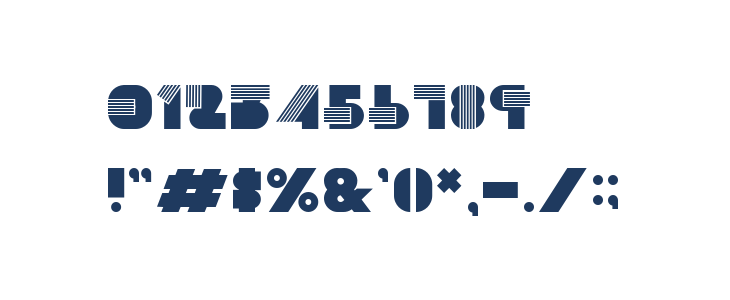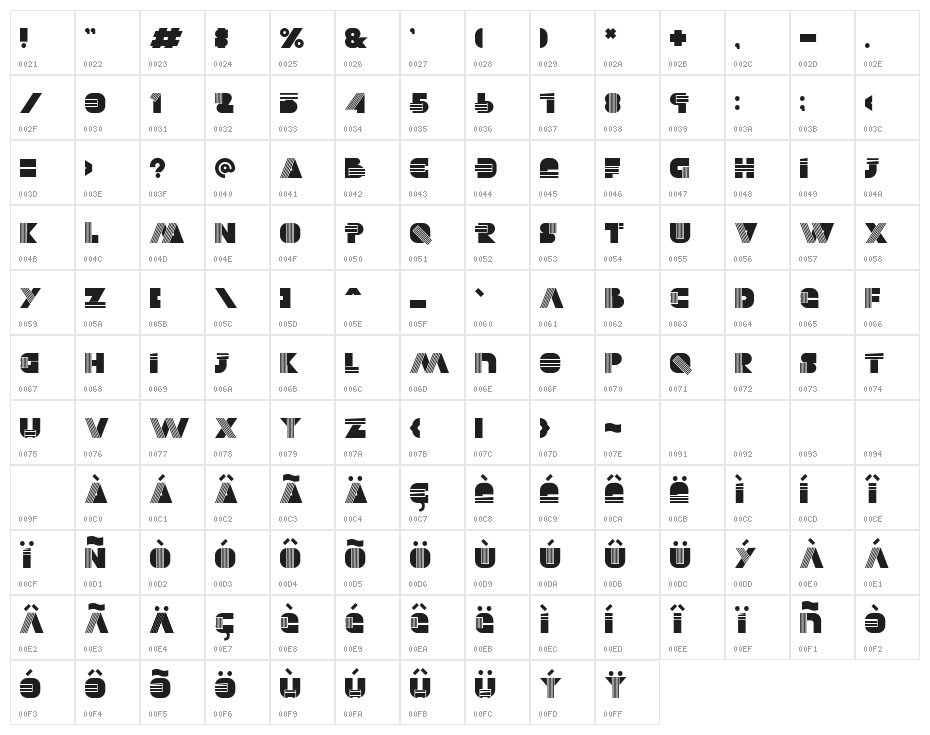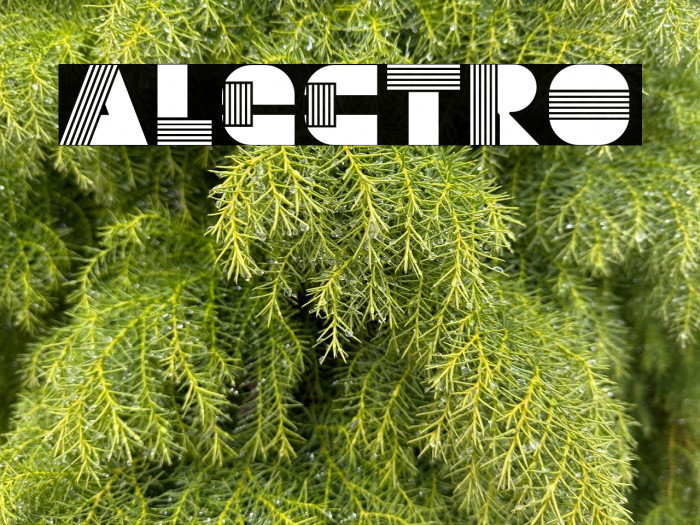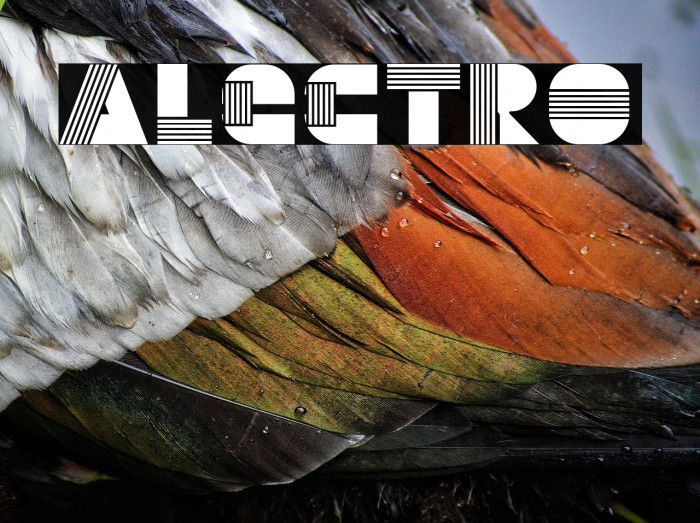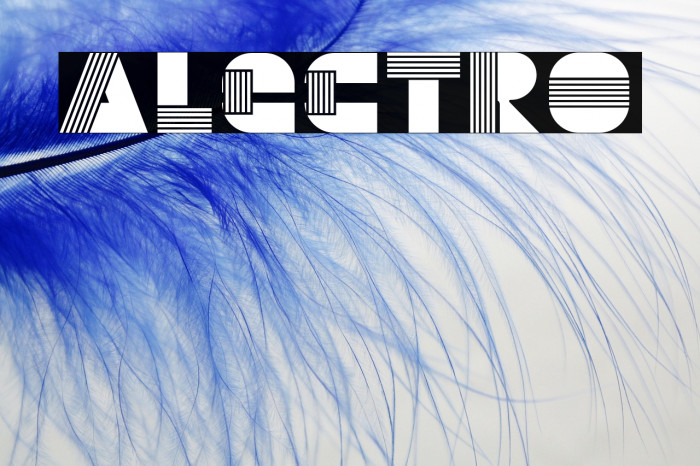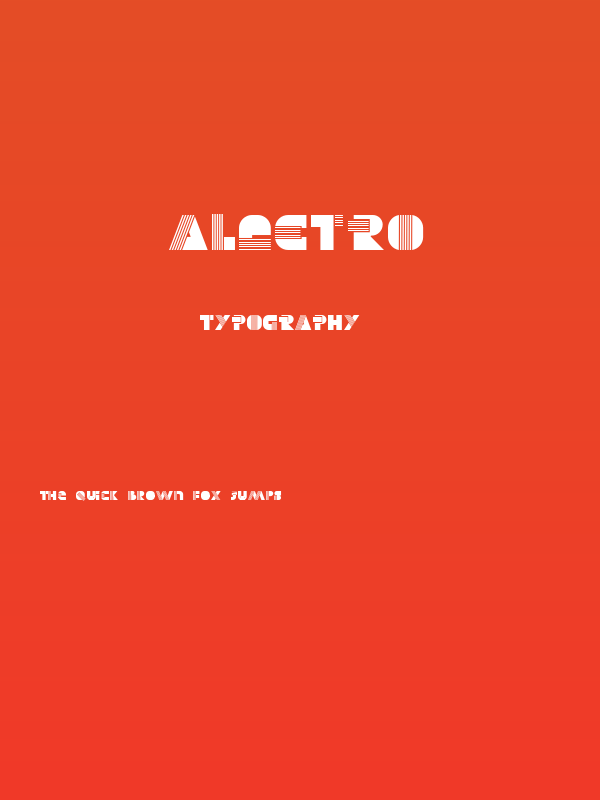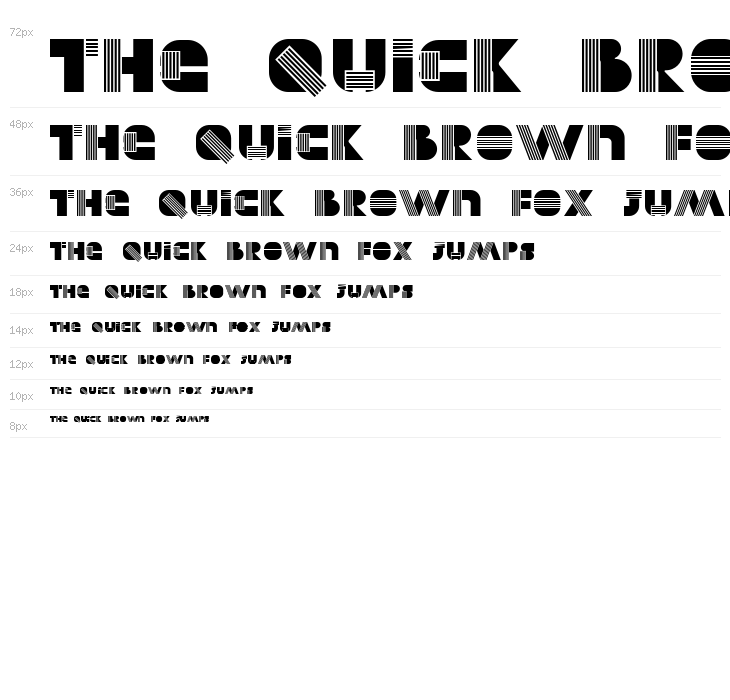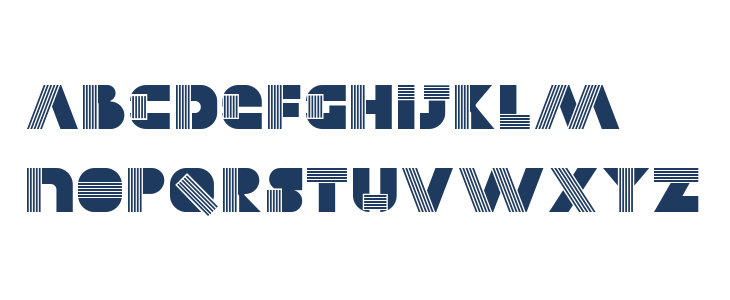
Alectro Font
Alectro Description
This font features a bold, geometric design with a distinct striped pattern running through each character. The uppercase and lowercase letters share a consistent style, emphasizing a modern and futuristic aesthetic. The numbers and special characters maintain the same boldness and striped detailing, creating a cohesive look across all elements. The font's unique style makes it stand out, with its high contrast and strong visual impact. The design is both decorative and functional, suitable for projects that require a striking and memorable typeface.
| Proposed Projects | Ideal for branding, posters, album covers, and any project seeking a modern, eye-catching typeface. |